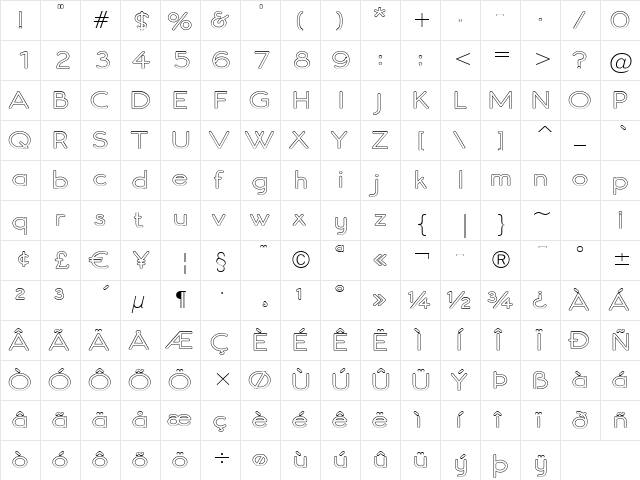
Register Sans BTN Wide Out Regular
Design Context for Register Sans BTN Wide Out Typeface
Register Sans BTN Wide Out takes a measured approach to typography — its balanced proportions and neutral character make it a reliable workhorse for both digital and print work.